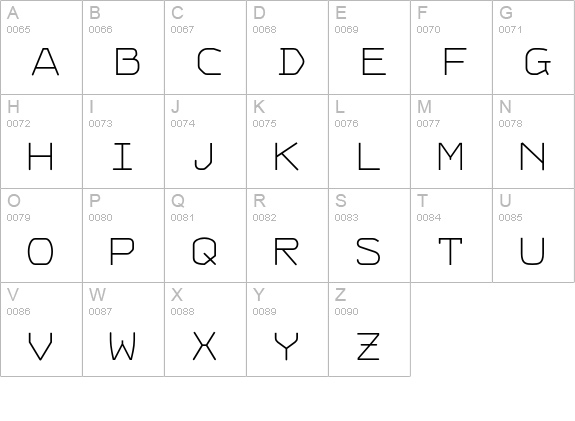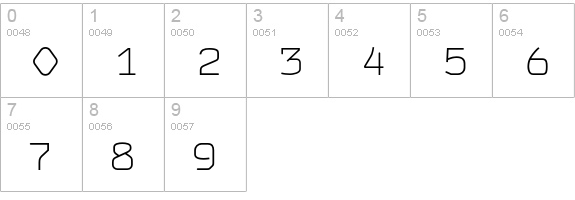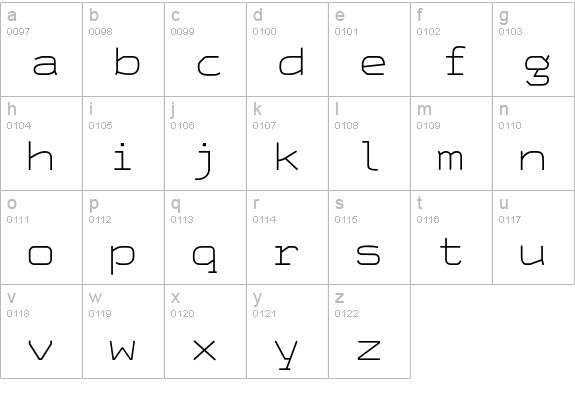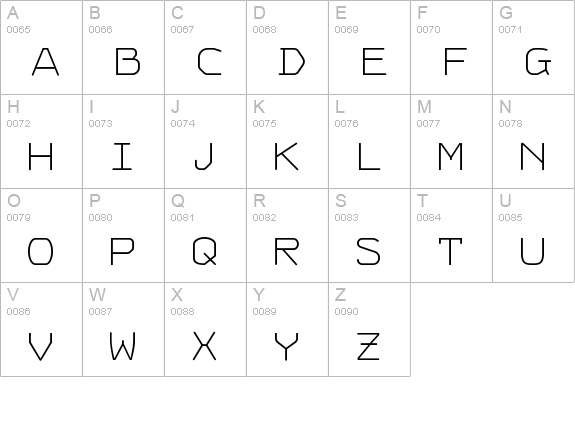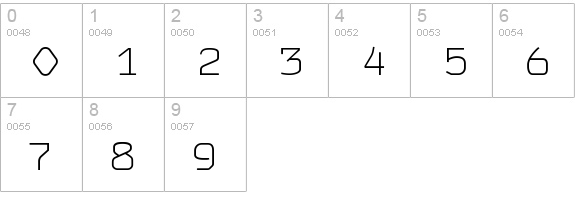
HardCase-UltraLight is an airy, ultra-refined variant in the HardCase typeface family \xE2\x80\x94 well suited to minimalist headlines and refined display use.
Introducing HardCase-UltraLight, a font that exudes an unparalleled sense of strength and sophistication. With its sleek and modern design, this typeface is the perfect choice for those seeking a font that effortlessly balances elegance and power. HardCase-UltraLight is meticulously crafted to capture attention and make a lasting impression. Its clean lines and slim weight create a refined aesthetic, making it ideal for a wide range of design projects. Whether you're designing a logo, crafting a professional presentation, or creating eye-catching advertisements, this font is sure to elevate your work to new heights. What sets HardCase-UltraLight apart is not only its stunning visual appeal but also its versatility. This font effortlessly adapts to any design context, seamlessly blending with various styles and themes. From fashion and beauty to technology and finance, HardCase-UltraLight adds a touch of sophistication and professionalism to every project it graces. And the best part? HardCase-UltraLight is available for free! That's right, you can freely download this exceptional font at FontsMarket.com, the go-to platform for font enthusiasts and designers alike. With just a few clicks, you can have access to this remarkable typeface and enhance your creative endeavors without breaking the bank. So why wait? Unleash your creativity and elevate your designs with HardCase-UltraLight. Download it today, and discover the limitless possibilities that await you. Don't miss out on this incredible opportunity to add a touch of elegance and flair to your projects, all thanks to the freely available HardCase-UltraLight font.